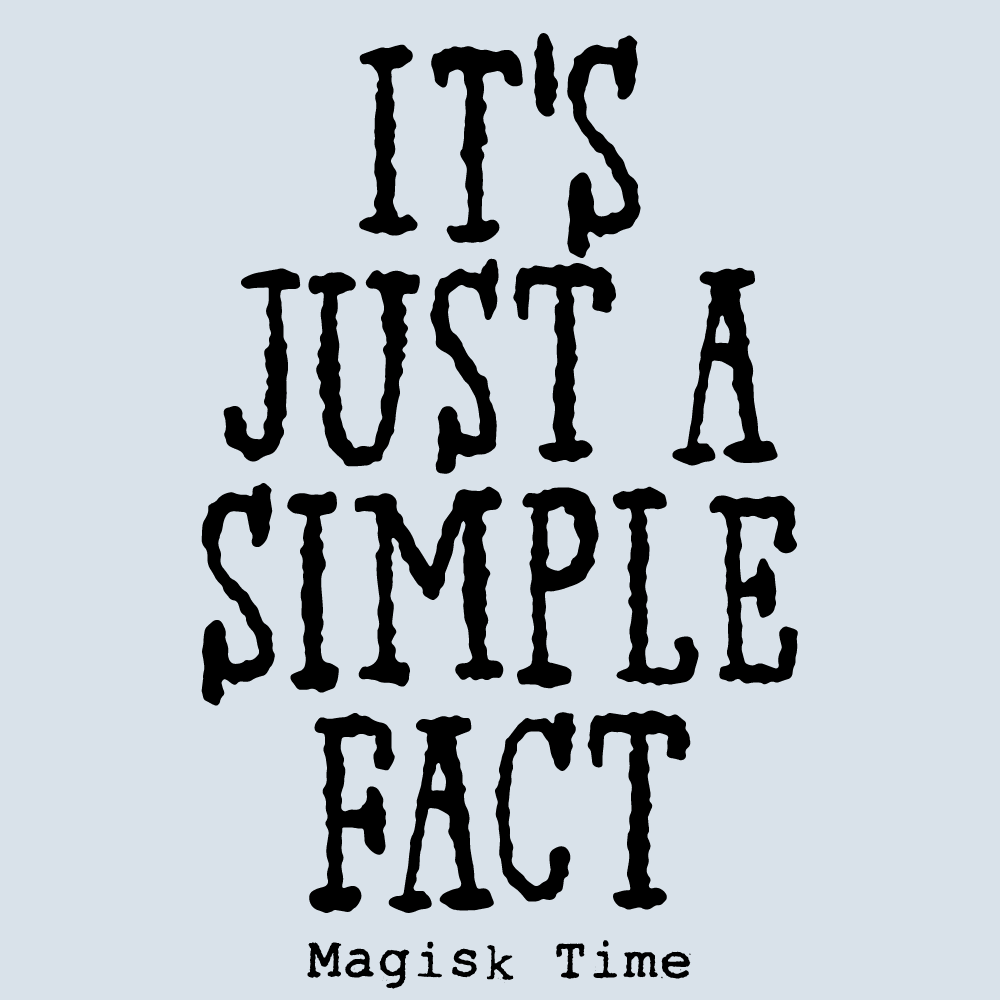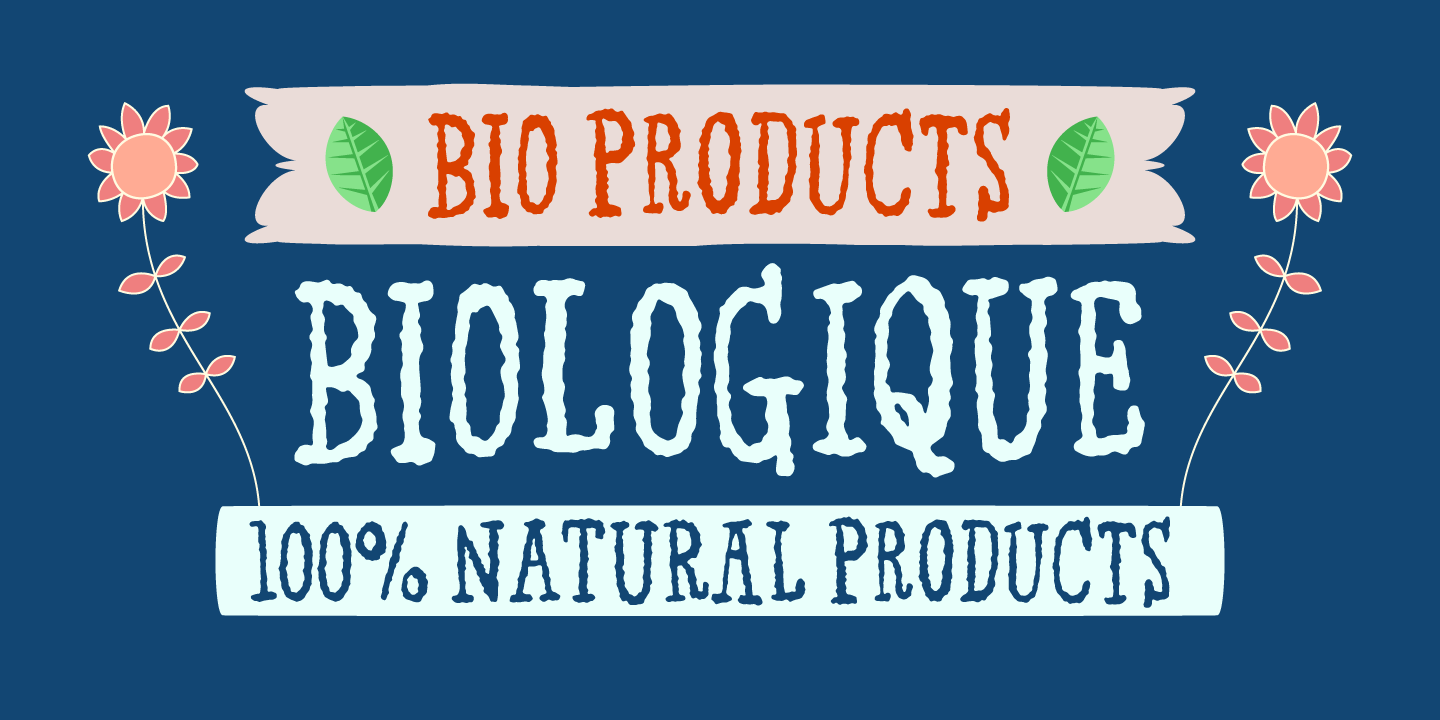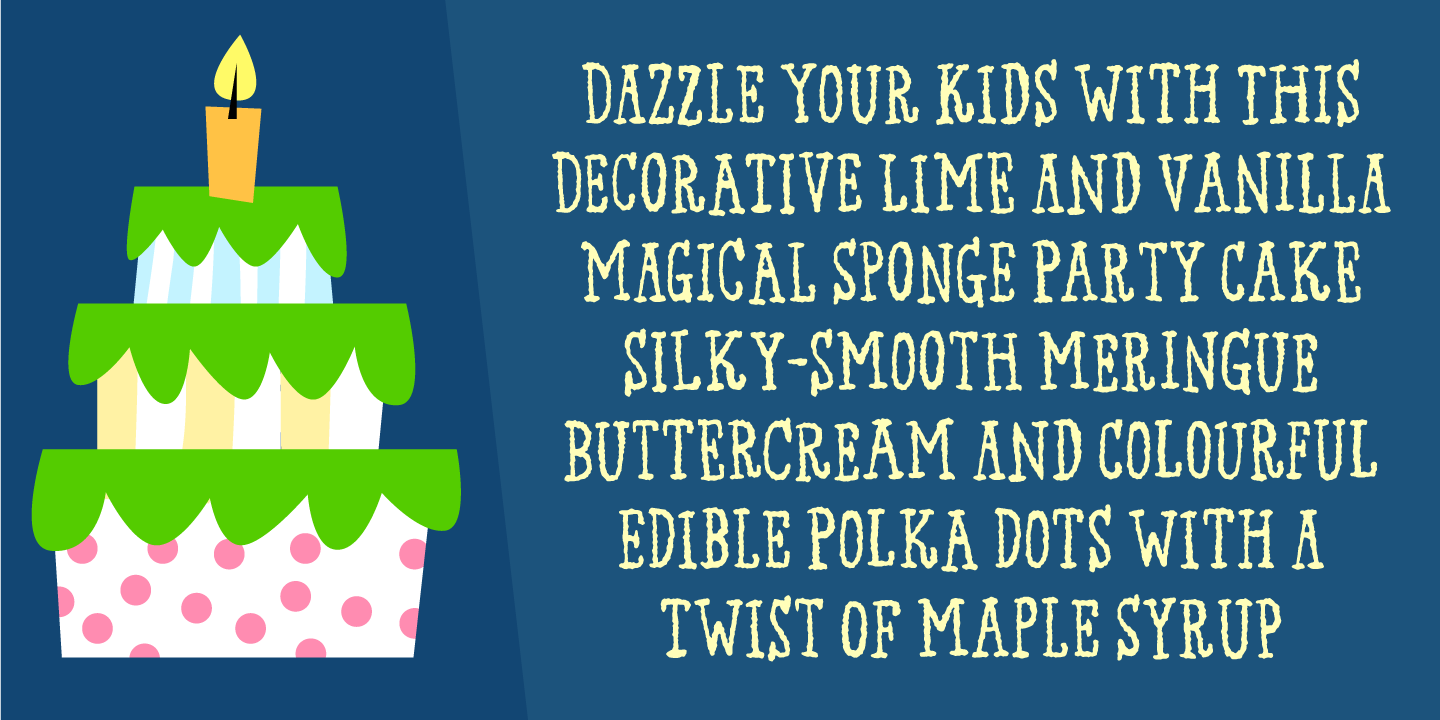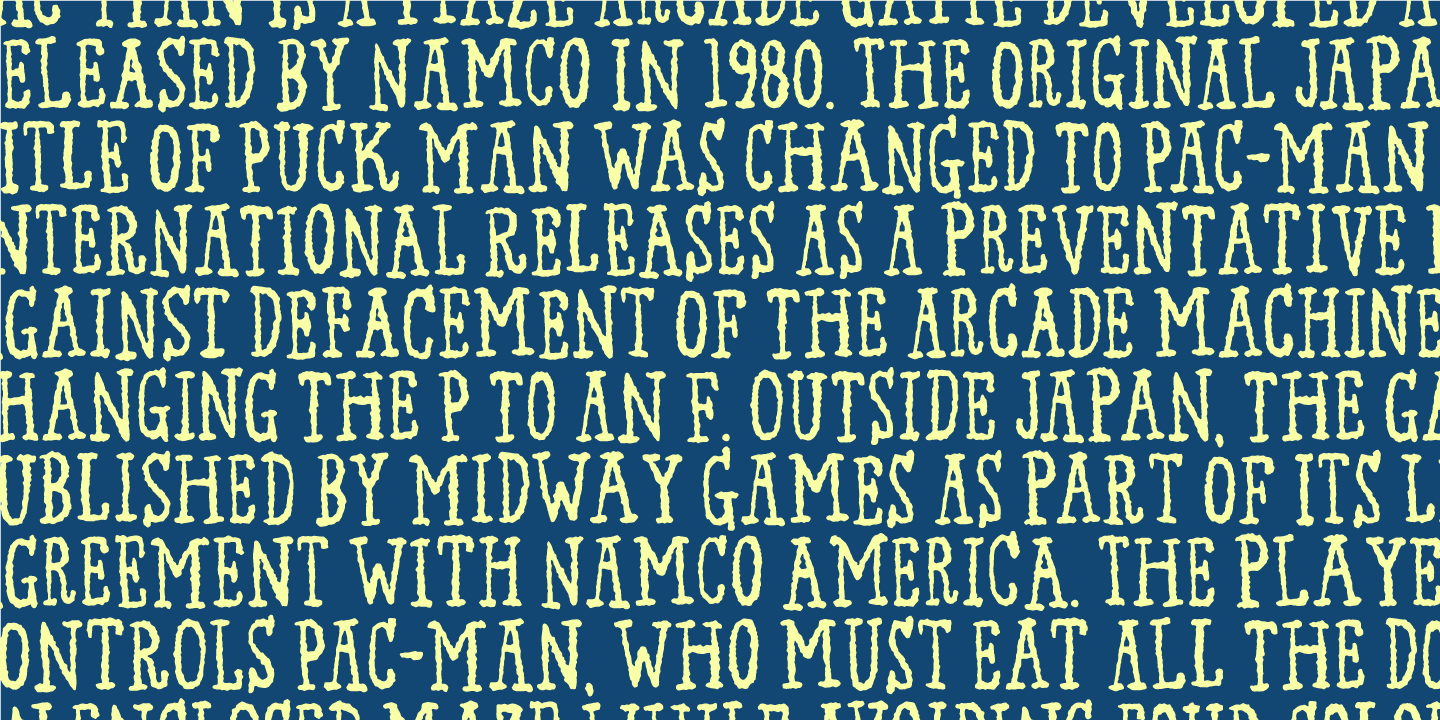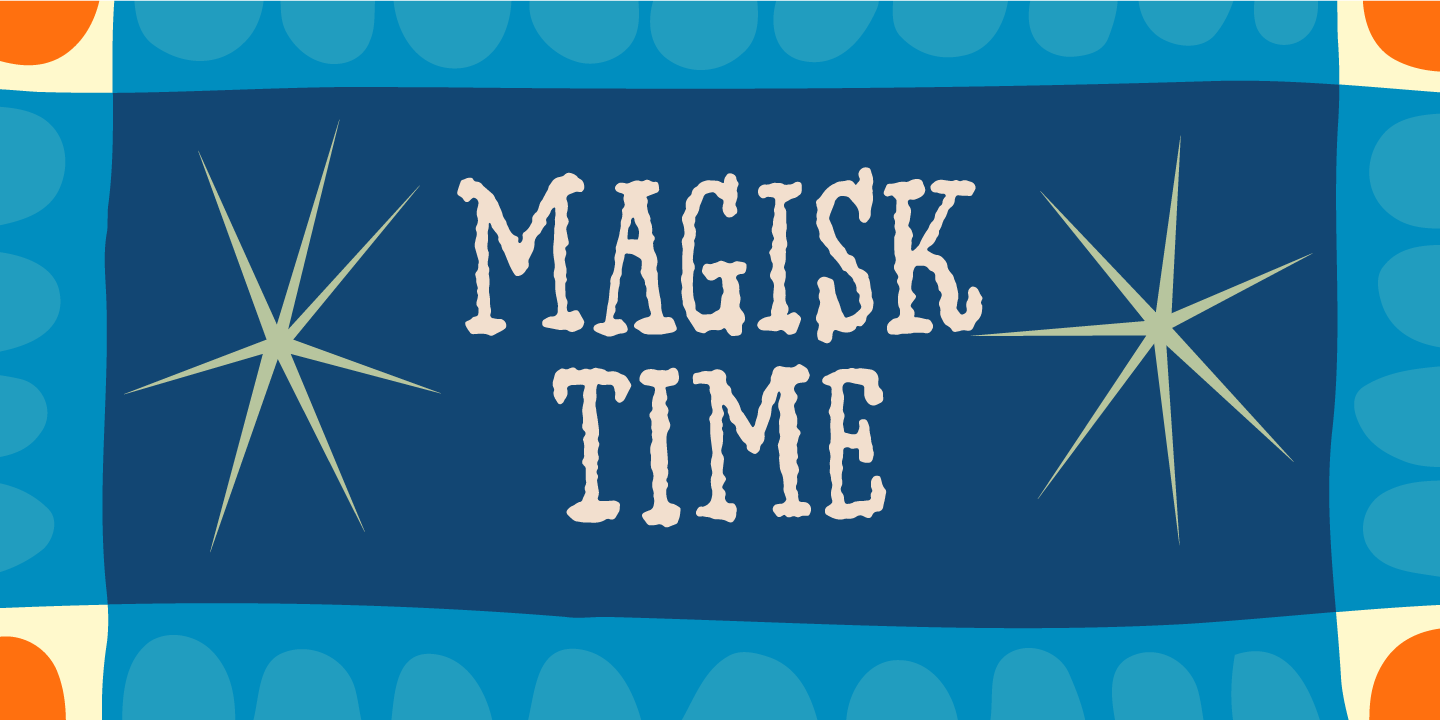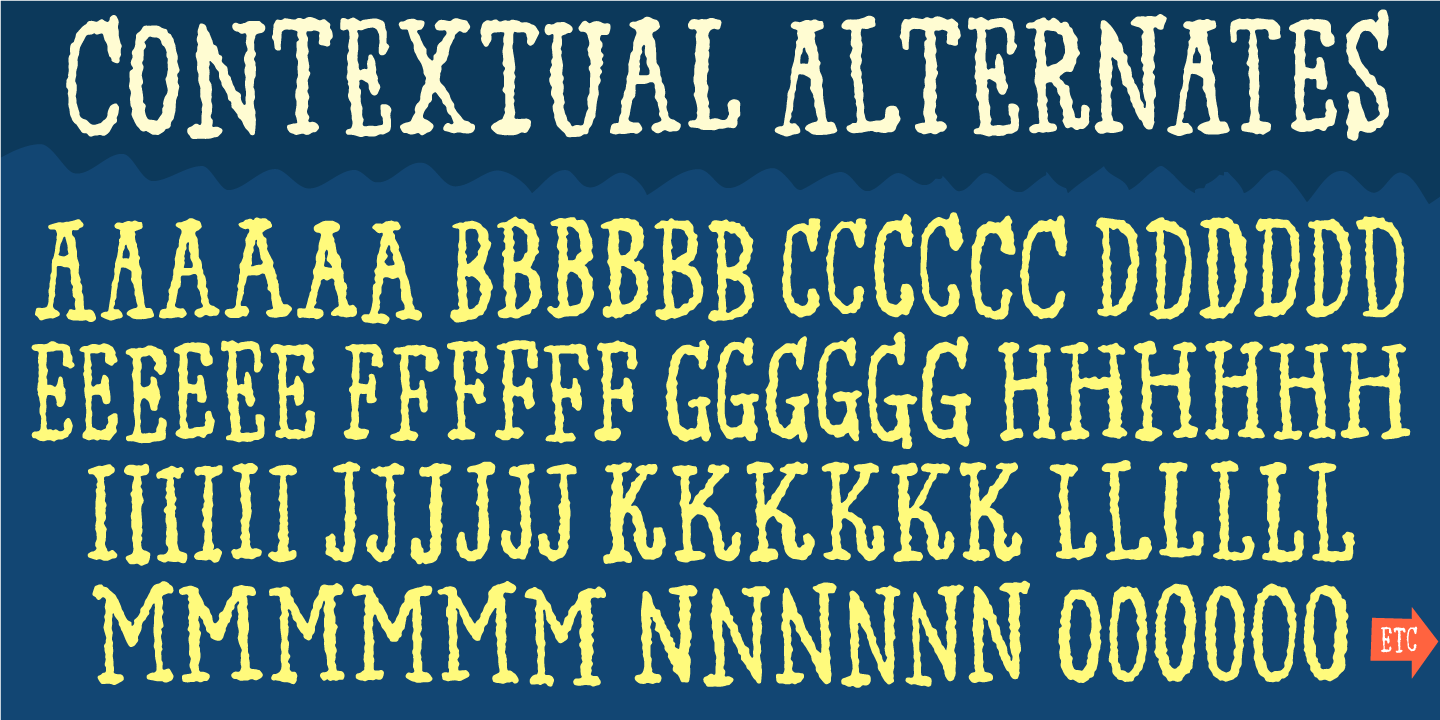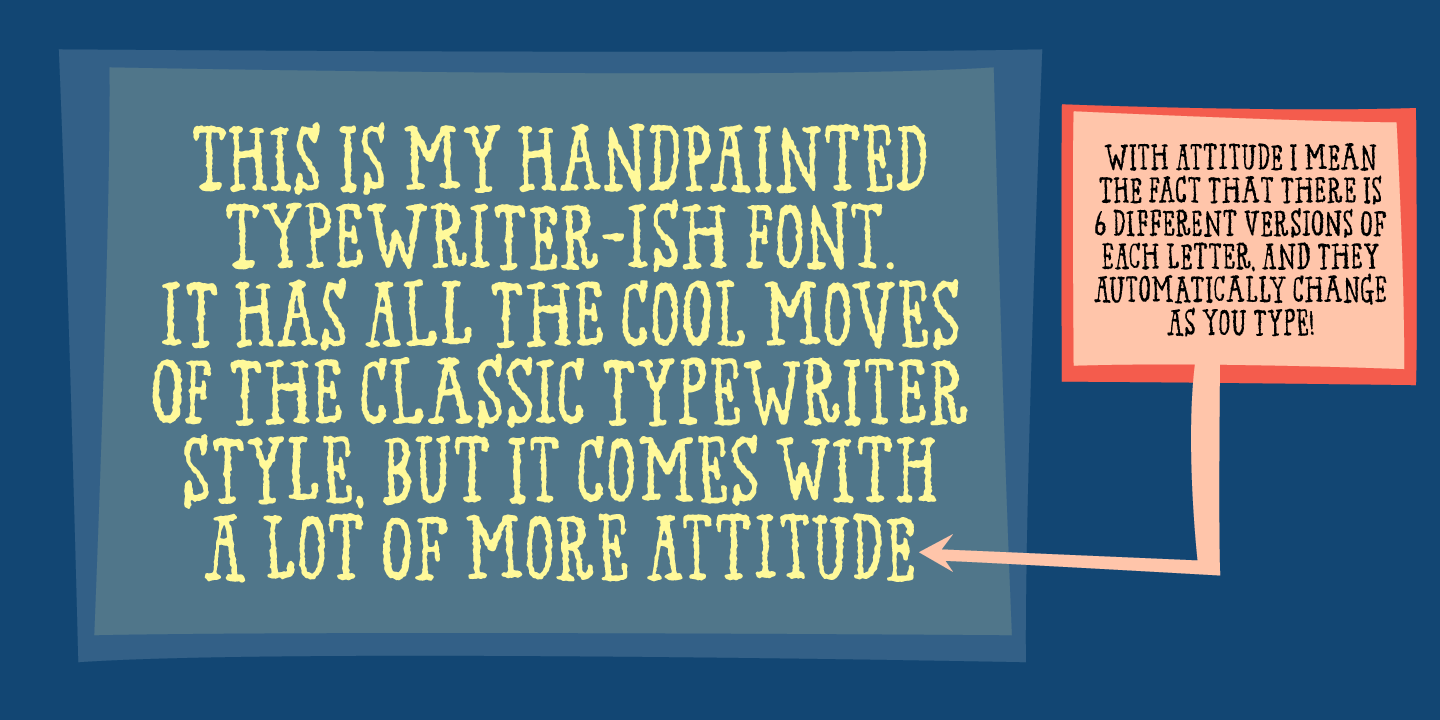
Magisk Time
This is my roughly handprinted typewrite-ish font. It has all the cool and classic moves of the traditional typewriter look, but with a more rough attitude due to the contextual alternates (which offer 6 different versions of each letter!)